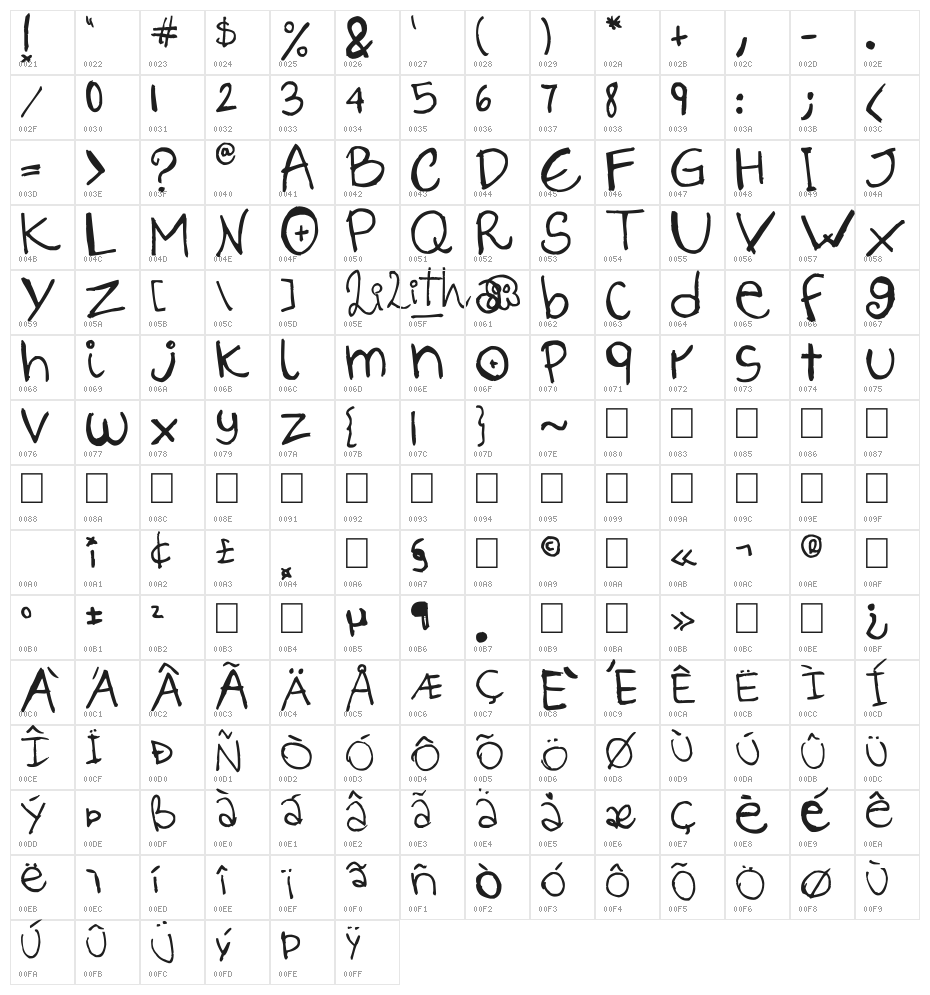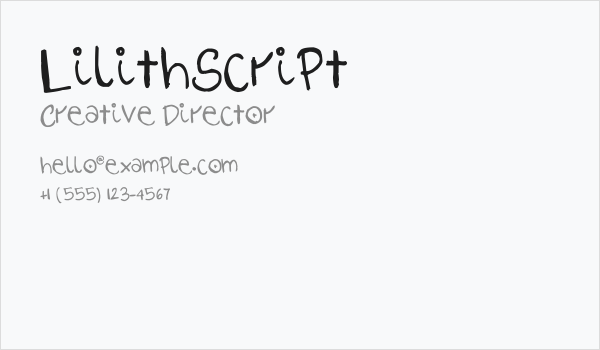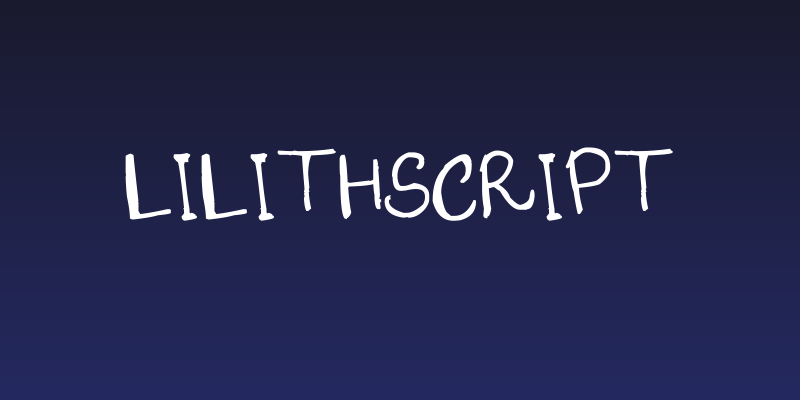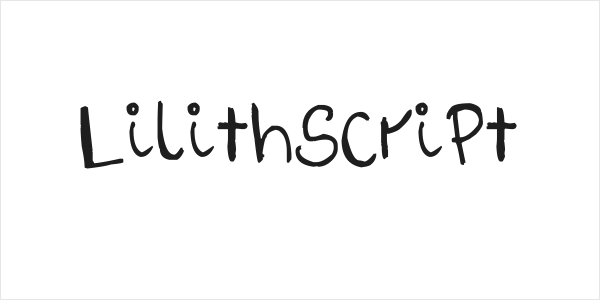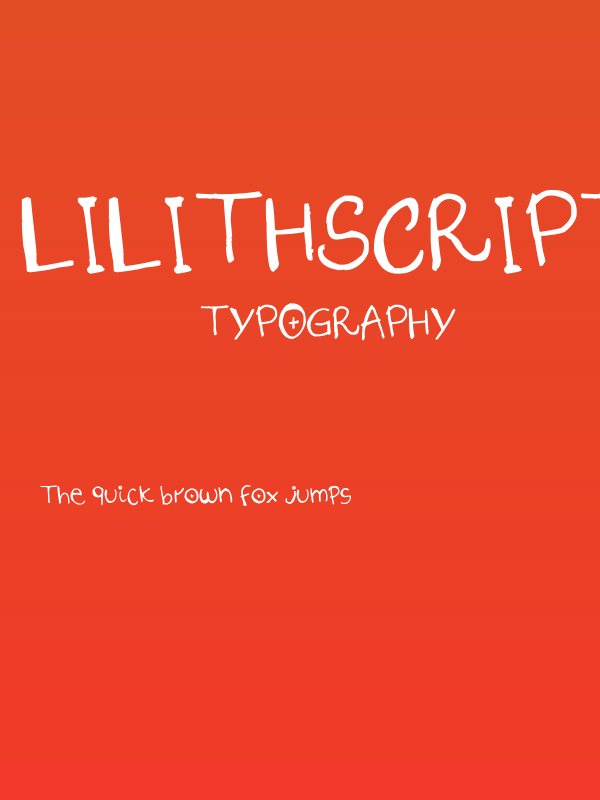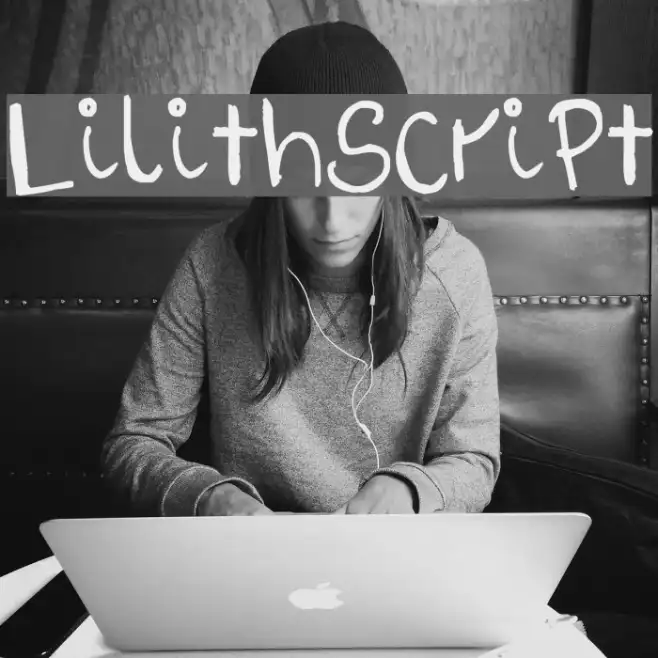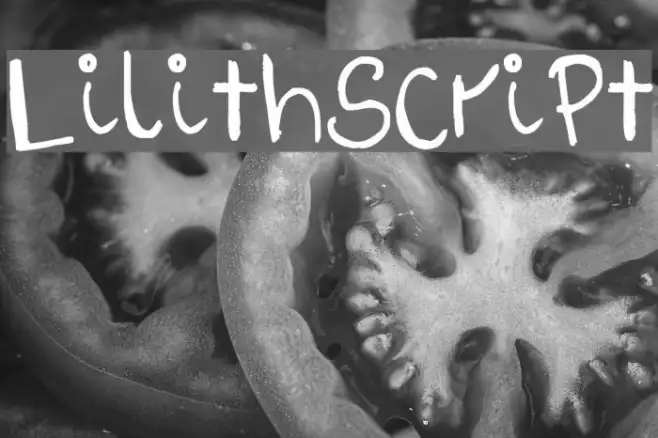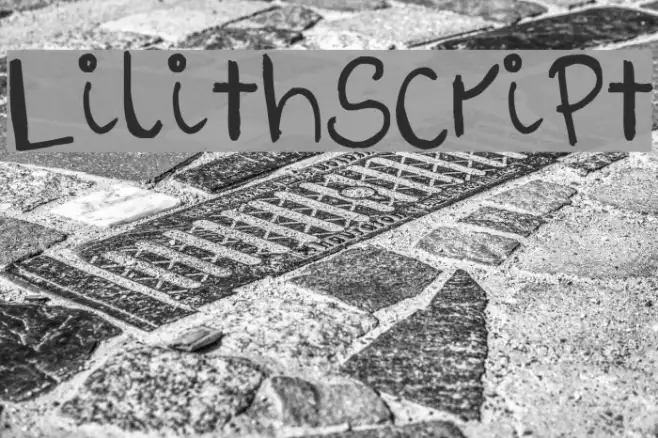
LilithScript Font
LilithScript Description
This font features a playful and whimsical handwritten style, characterized by its irregular and dynamic strokes. The uppercase letters are bold and slightly uneven, giving a casual and informal feel. The lowercase letters maintain a consistent flow, with some characters exhibiting unique loops and curves that add personality. Numbers are bold and easy to read, while special characters are creatively integrated, maintaining the overall playful aesthetic. The font's organic and lively appearance makes it suitable for projects that require a personal touch.
| Proposed Projects | Ideal for greeting cards, children's books, playful branding, and creative posters. |